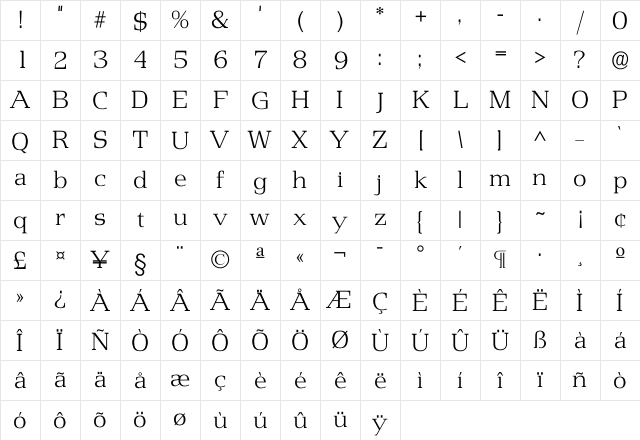
Pentho Xlight Free Font
Pentho Xlight
Style: Xlight
Design Context for Pentho
Pentho is a composed and adaptable typeface that performs quietly and consistently across a wide range of design contexts. Its slender proportions lend an understated elegance to any composition.